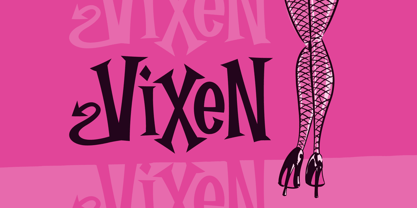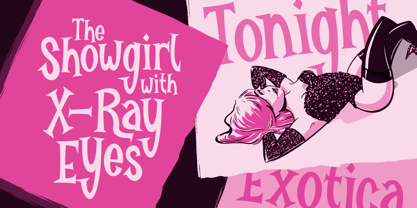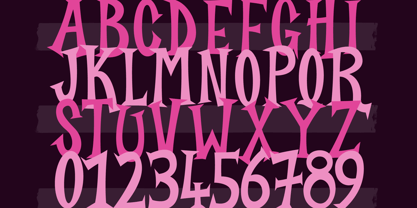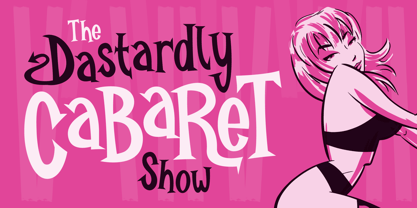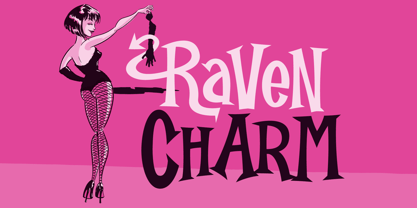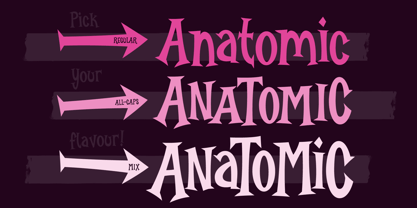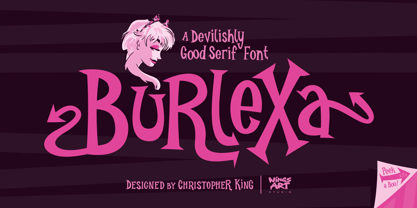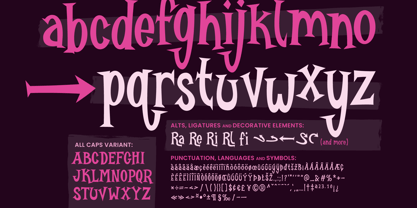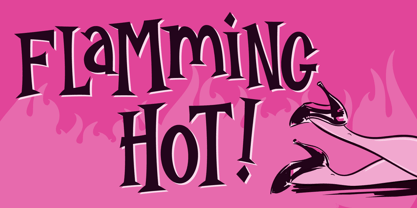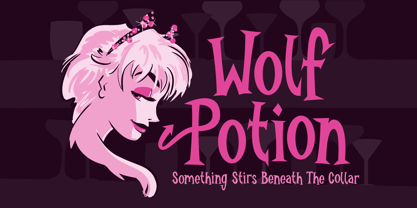
Burlexa
Burlexa is a flirtatious serif font that winks at the golden age of showgirls, pin-ups, and candlelit tiki lounges. It’s been shaken, stirred, and given a dash of gothic drama — just enough to make you wonder if it’s teasing or casting a spell. It appeals to a nostalgic 1950s charm, of TV sitcoms playing to a bewitched studio audience, Vegas shows hosted by the Rat Pack, and cocktails set against exotic soundtracks. It's equal parts devil and delight, naughty and nice. The Burlexa font family includes a double act of the Regular style (upper, lowercase, numerals, and multi-language support as standard) and the All-caps alternative, which gives the font an edgier look. Also included are a host of custom ligatures and decorative capitals featuring preset versions of the devilish tails — more about those below. If you happen to fall head over heels in love with the ladies used in these visuals, you'll be happy to learn that they're available in my Pin-Up Illustrations Bundle. Each illustration (by yours truly) comes in its own fully editable and easy-to-use poster template for Adobe Illustrator and Photoshop. Find it at my website. Decorative Tails: I've included preset versions of all capitals featuring what I'll call the 'devil tales'. You'll find these either as pop-up stylistic options or by selecting them directly from the glyphs menu in your program of choice. But if you want to get into the details and try something different, I've also included a range of separate tails that you can add yourself to the standard capitals. You'll find these hidden as alternative characters in all the numerals, or in your glyphs menu. Enjoy! Copyright © 2025 Christopher King | Wingsart Studio
Christopher King (aka Wingsart Studio) is a Graphic Designer specialising in hand-drawn lettering for film and television titles. From blockbuster films to indie press, Wingsart Studio fonts have appeared on screens big and small around the globe. His work has been used by companies including Disney, Marvel, Apple, Netflix and Paramount Studios.The Wingsart Studio philosophy is to embrace the imperfections inherent with real pens, pencils, paper and brush. In counter-balance to an AI driven age, these fonts remain refreshingly analogue and proud of their human touch. Before a single letter turns into a digital product, countless hours are spent researching and sketching out ideas in pursuit of those perfect lines and shapes.